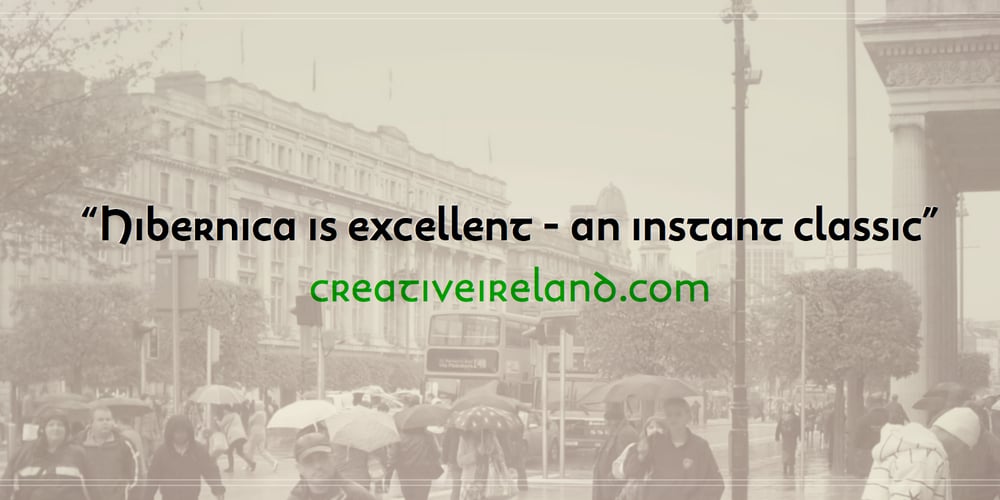
Hibernica Font Family was designed by Andreas Stötzner and published by SIAS. Hibernica contains 6 styles and family package options. Hibernica is a new genuine Irish sans in the classical modern style. With Hibernica it is possible to express Irishness in an up-to-date fashion rather than the traditionalist way. The design of Hibernica is based on my Lapidaria family. With Lapidaria it shares the classic appearance and coolness, stroke pattern, proportions and dimensions. Therefore Hibernica and Lapidaria are a perfect couple for bilingual text editing, e.g. Irish–English (not to forget the Greek parts of Lapidaria!). All fonts contain the full set of dotted ḃ ċ ḋ ḟ ġ ṁ ṗ ṡ ṫ in upper- and lowercase and an additional set of a dozen celtic ornaments. Hibernica also ows its “Minor-Medior” concept to Lapidaria, that is a special uncial-style variant set for lowercase letters. Choose from the six Hibernica fonts which suits your needs best! The Minor fonts are performing elegantly even in longer text bodies, whereas the Medior sorts offer a brillant and entirely new typographic look for headings and captions. Use Hibernica for outstanding designs – for a contemporary Irish understatement in typography. Wether you’re designing menus or shop signs, banners or ads, wether you do textwork upon historic topics or create T-shirts for St Patrick’s day – Hibernica is your new friend! For more new wonderful Irish fonts look at Ardagh and Andron Gaeilge!